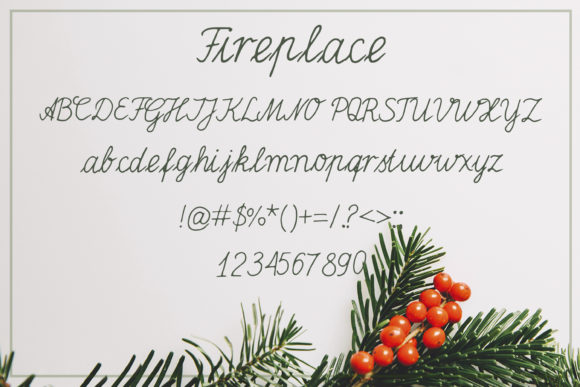
The Magic of Fireplace Font
Have you ever found yourself in a quiet moment, surrounded by blank pages and endless possibilities, yet feeling a spark of creativity ignite within you? That’s when you know you’re on the verge of something special. For designers, those moments are a treasure to behold, and the right tools can make all the difference. Introducing Fireplace Font, a delicate and magical handwritten font that will transport your designs to a world of warmth and romance.
Fireplace Font is more than just a font – it’s an experience. Its gentle curves and playful flourishes will add a touch of whimsy to your projects, making them stand out from the crowd. Whether you’re designing a wedding invitation, a children’s book, or a marketing campaign, Fireplace Font is the perfect companion to help you bring your vision to life.
Key Features of Fireplace Font
- Font Style: Script, Calligraphy
- Unique Characteristics: Hand-drawn, elegant, and sophisticated design; perfect for creating a cozy and inviting atmosphere
Design Review: Fireplace Font
Overall, Fireplace Font has some interesting elements that could make it a unique addition to a project, but it also has some notable limitations. ✨
- The intricate details and curves of the font give it a cozy, homey feel that’s reminiscent of a crackling fireplace.
- The font’s use of warm, earthy tones is visually appealing and could add a sense of comfort to a design.
- The font is highly customizable, allowing users to adjust the size, color, and style to fit their needs.
- The font’s unique aesthetic may not be suitable for all projects, and its use of warm tones may clash with other design elements.
- The font’s intricate details may make it difficult to read at smaller sizes, which could be a problem in certain contexts.
- The font’s customization options may be overwhelming for users who are not experienced in font design.
While Fireplace Font has some unique qualities that could make it a great addition to the right project, its limitations may make it less suitable for more complex or high-traffic designs.
Tips for Getting the Most Out of Fireplace Font
1. Use the Fireplace Font in combination with warm colors and textures to create a cozy atmosphere.
2. Experiment with different font sizes and styles to add visual interest to your design.
3. Use the Fireplace Font in headings and subheadings to create a clear hierarchy of information.
Alternatives to Fireplace Font